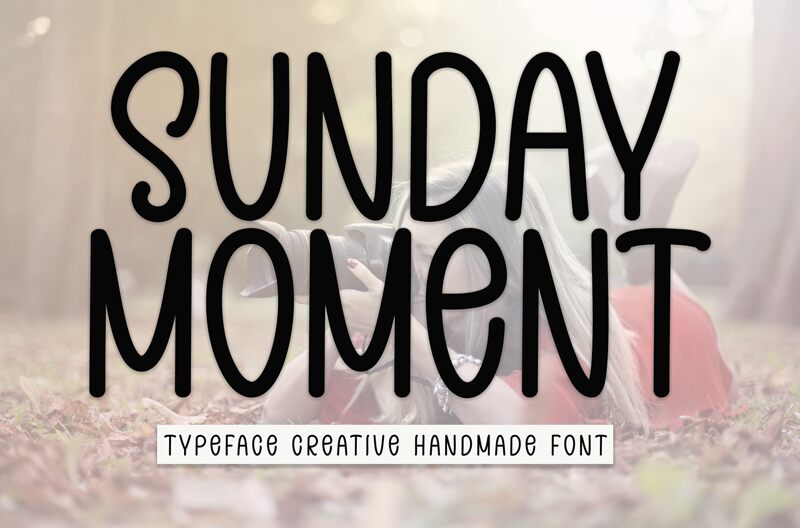
Sunday Moment
Sunday Moment is a captivating handwritten font designed by Andi Moz. With its delightful, condensed strokes and playful personality, this font exudes a charming and friendly aesthetic. The organic, handcrafted feel of Sunday Moment creates a sense of warmth and authenticity, making it a delightful choice for a variety of design projects.
This versatile font lends itself beautifully to wedding invitations, greeting cards, and any design that requires a touch of playfulness and whimsy. Its condensed width allows for efficient use of space, making it an excellent option for projects where layout and composition are crucial. Sunday Moment's adaptability ensures it can seamlessly integrate into a wide range of design styles, from modern and minimalist to rustic and vintage.